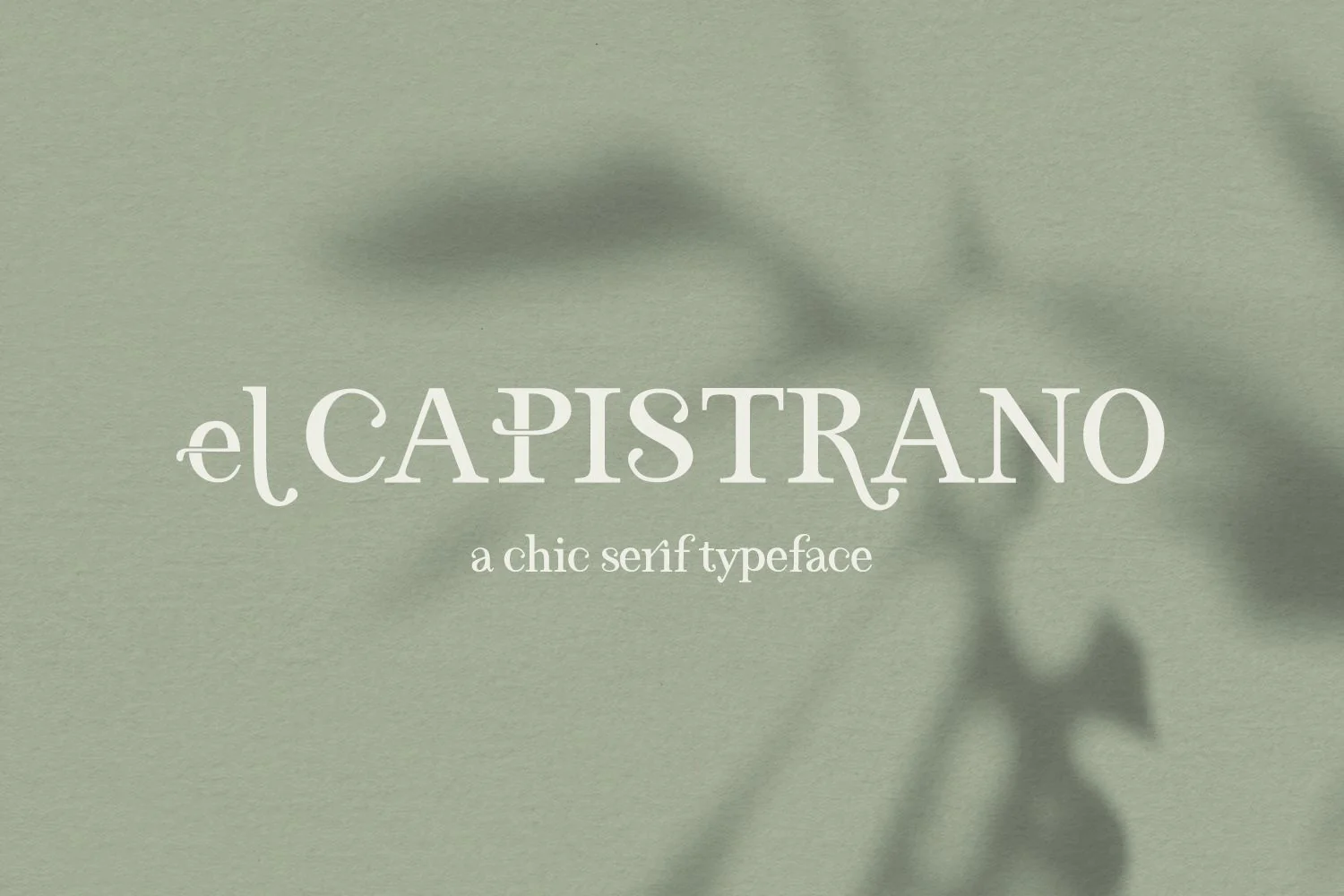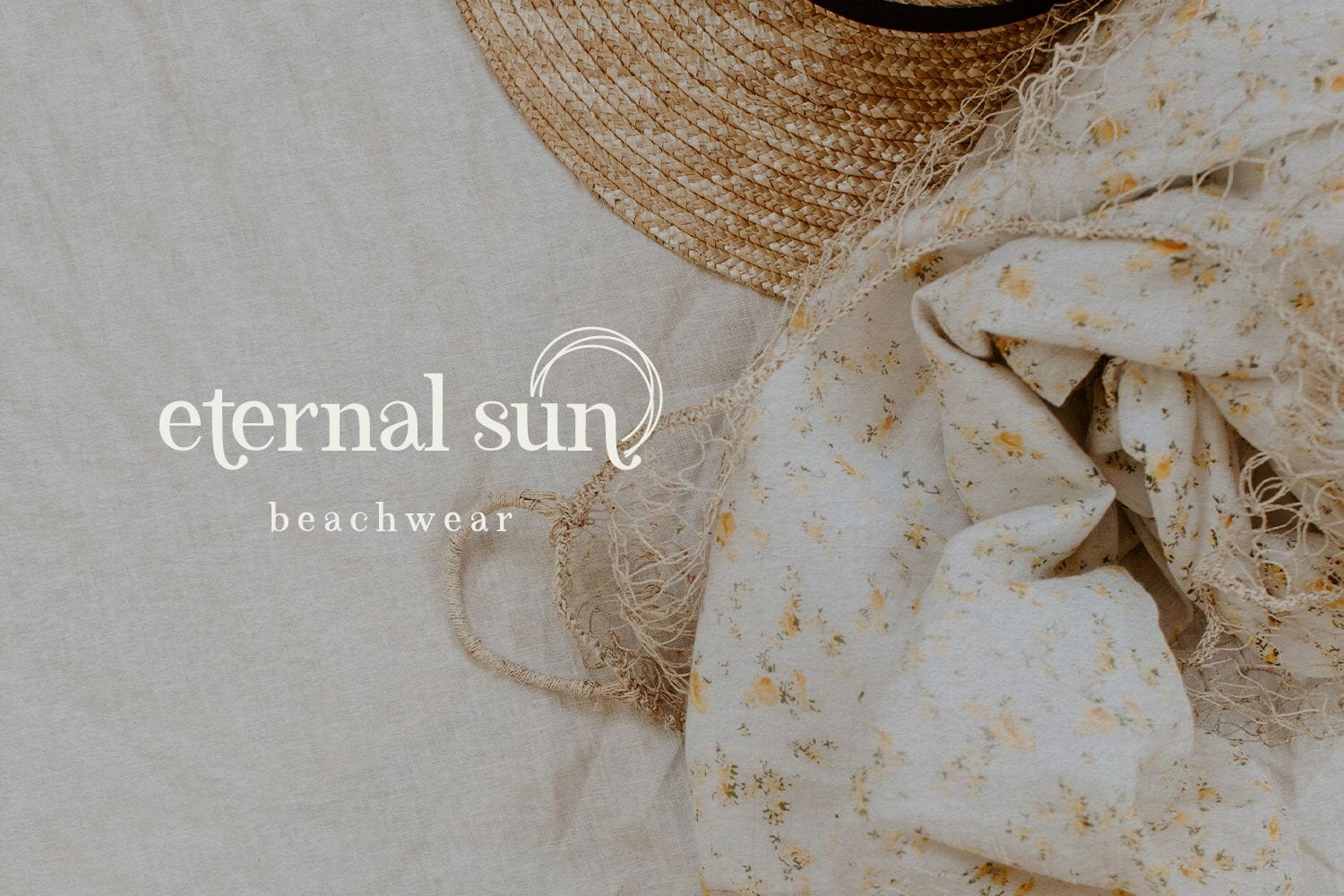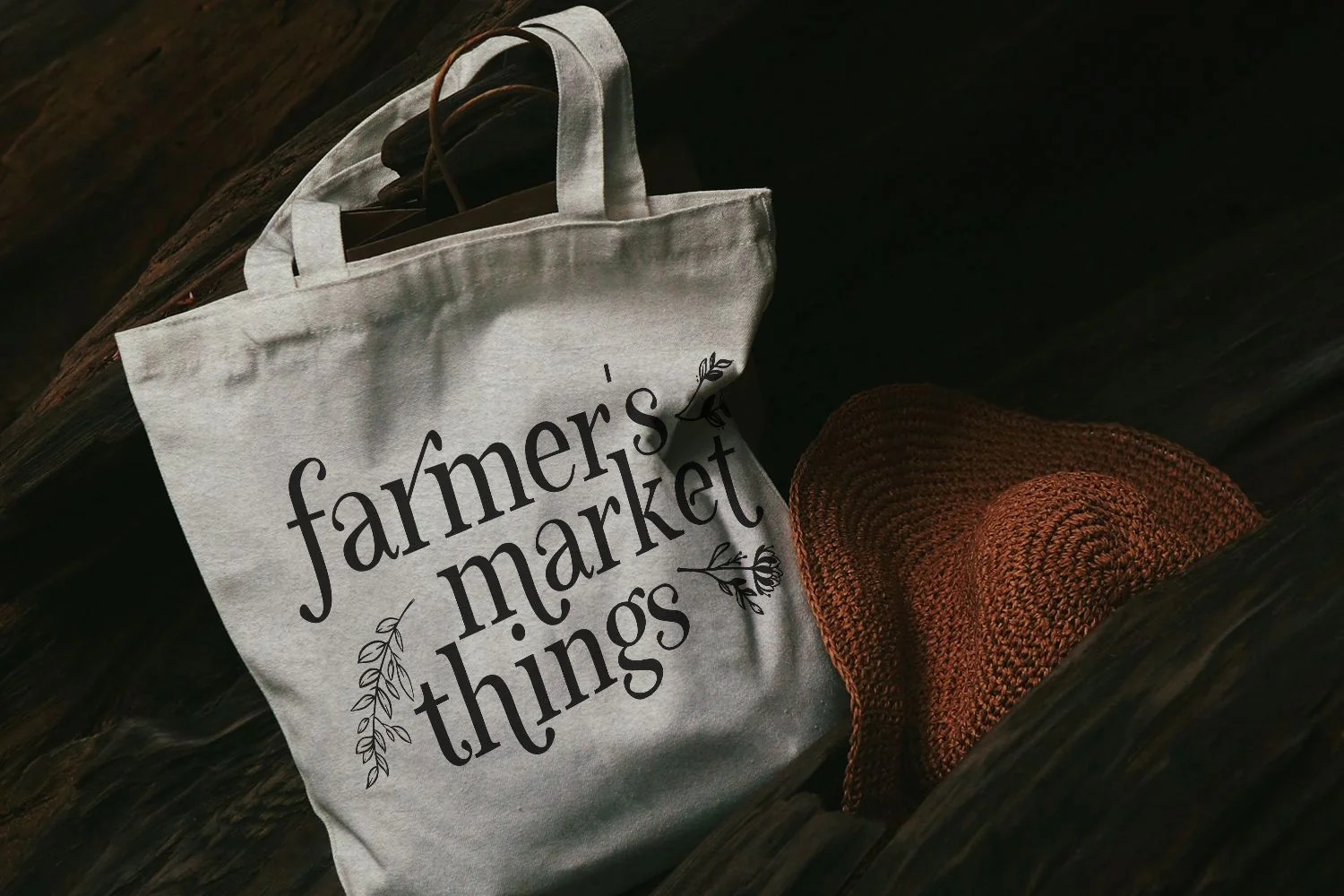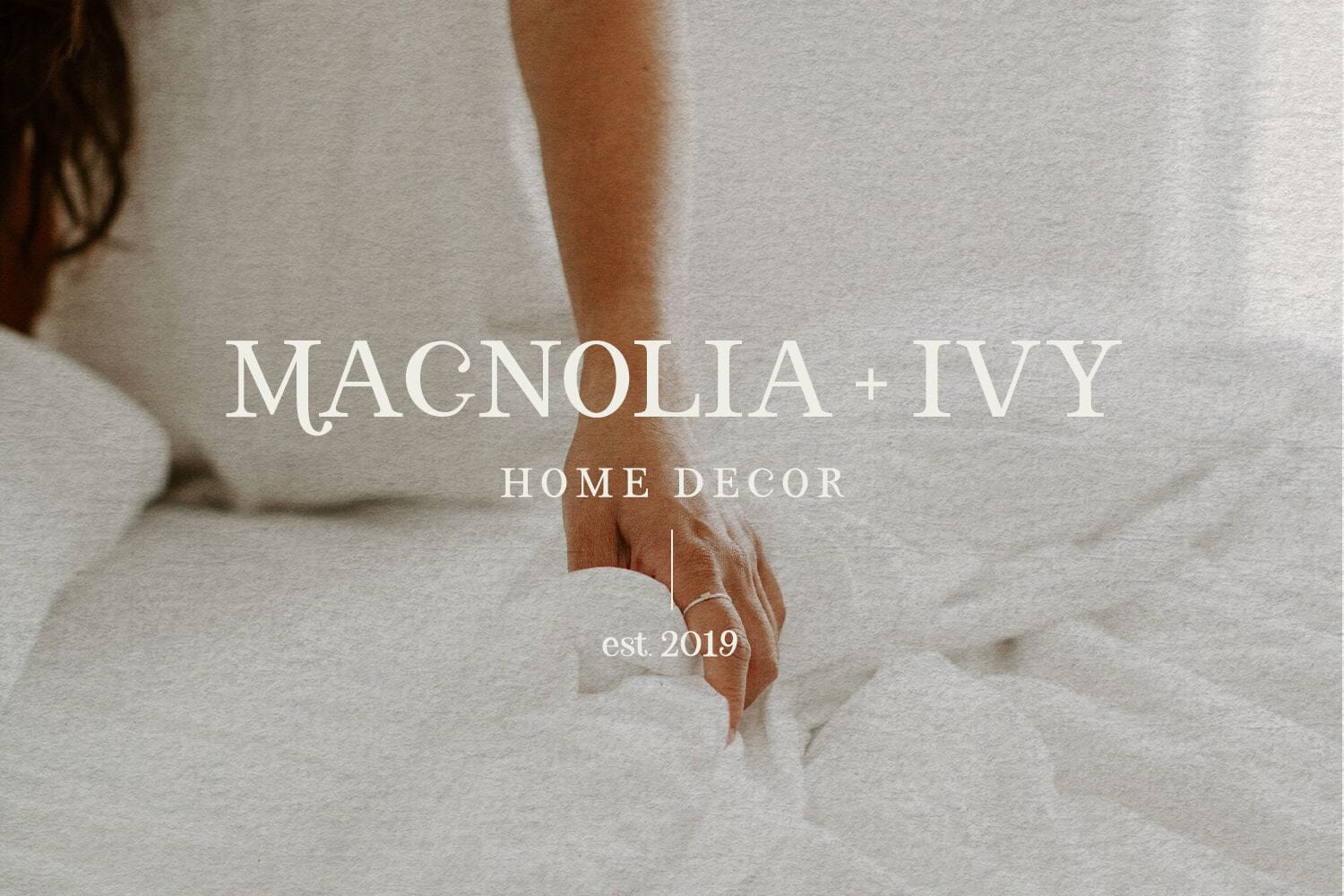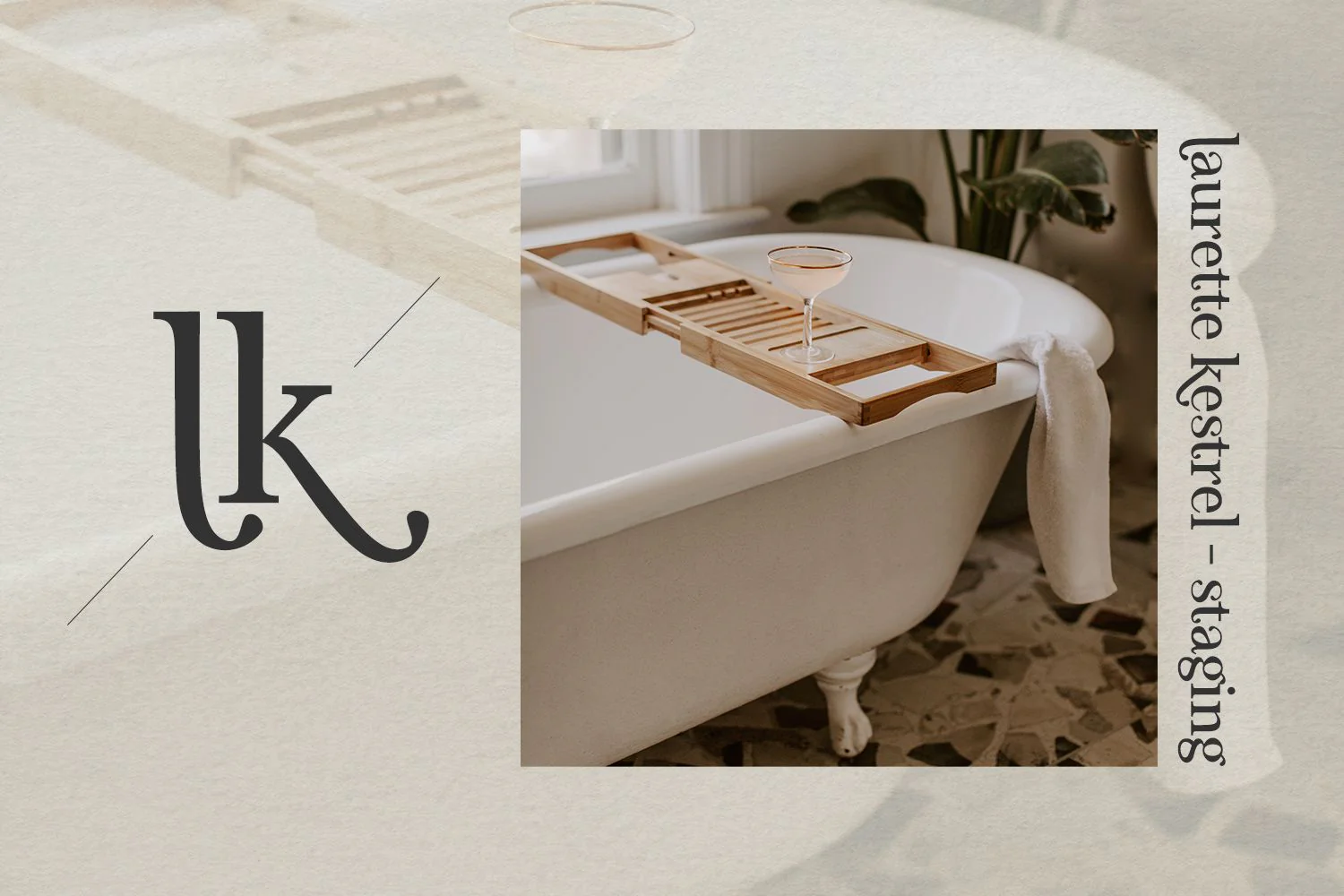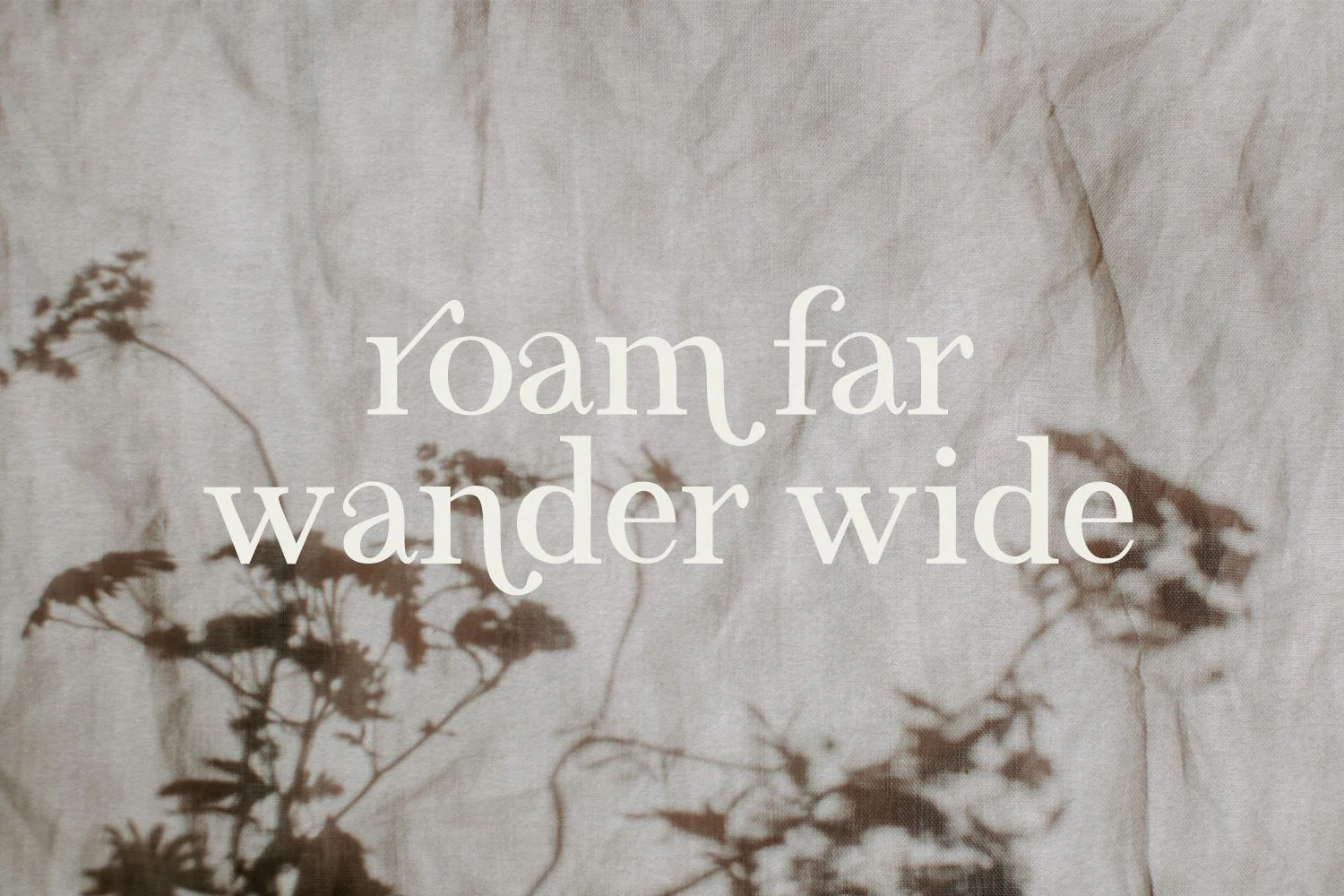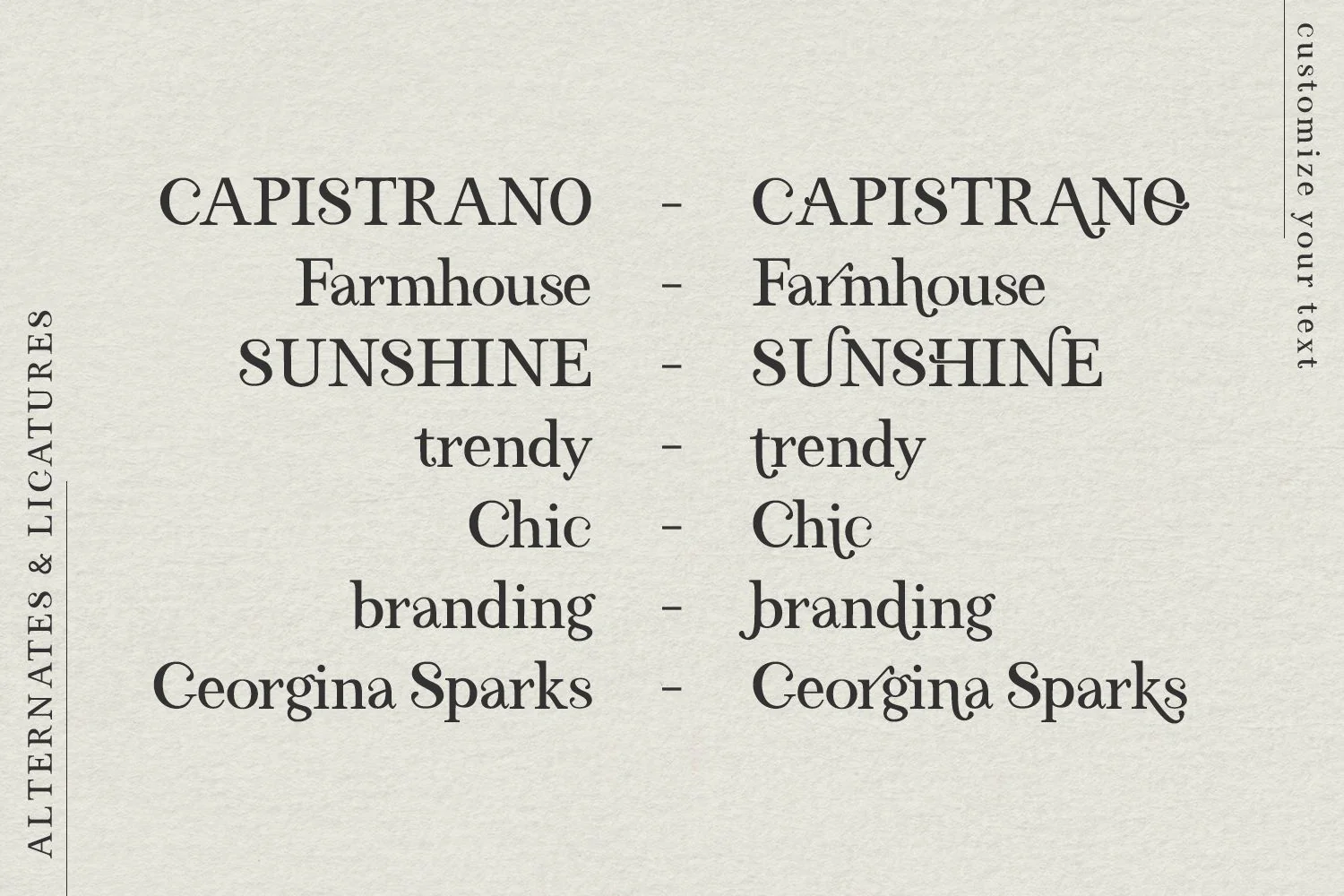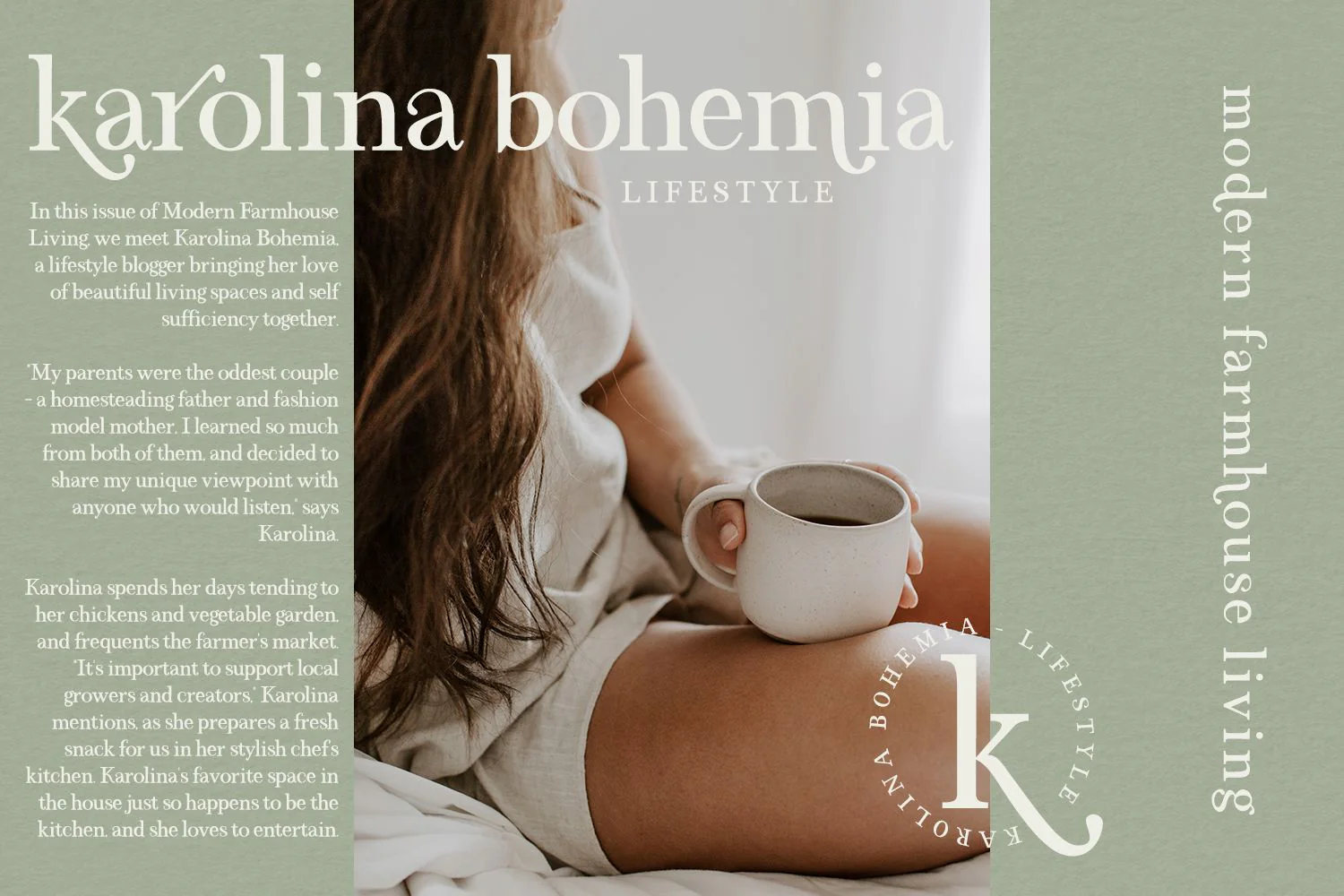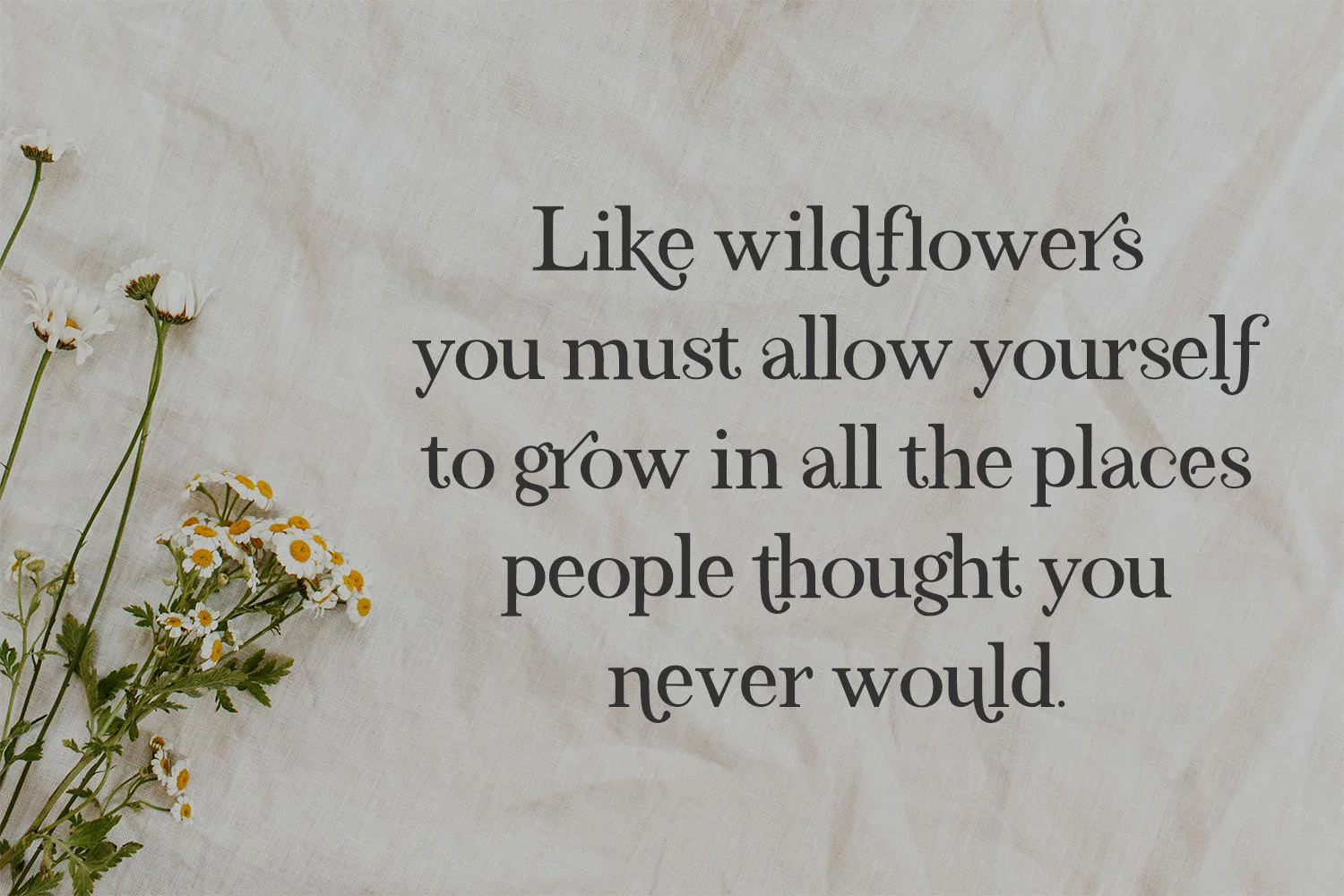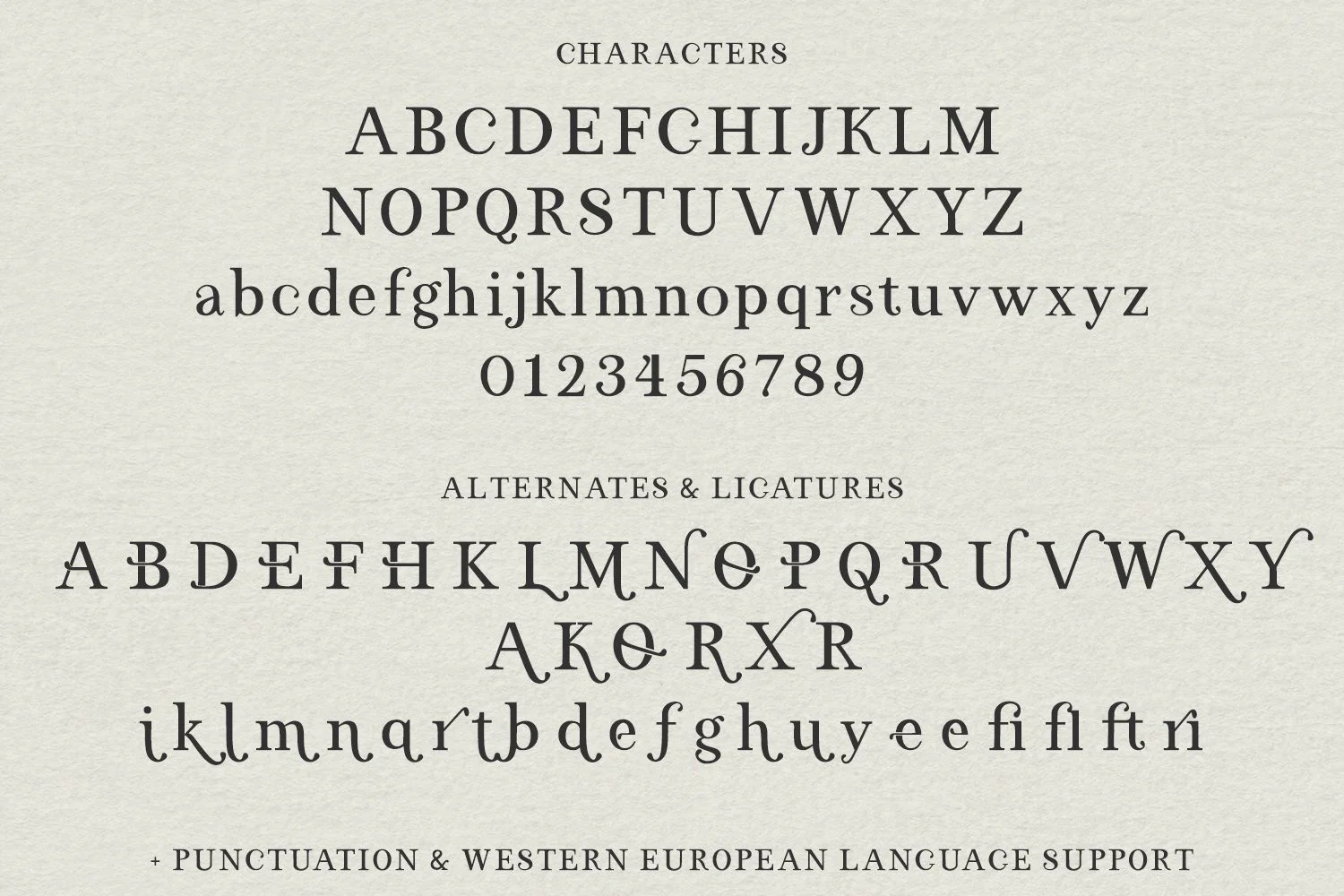
El Capistrano Serif Font
Say hello to El Capistrano Serif, a stylish and chic serif font with classy ligatures and alternates. Some alternates include cut-outs where the flourish overlaps, making this classic-looking font a touch more modern. Using El Capistrano in your next project will no doubt ensure that it stands out!
El Capistrano Serif is best for:
- logos + branding
- printed materials, both for attention grabbing headlines and easy to read blocks of content
- header elements that need handwritten touch
- quote graphics for social media like Facebook or Instagram
El Capistrano includes:
- 43 alternate characters
- 4 ligatures - fi, fl, ft, ri
Say hello to El Capistrano Serif, a stylish and chic serif font with classy ligatures and alternates. Some alternates include cut-outs where the flourish overlaps, making this classic-looking font a touch more modern. Using El Capistrano in your next project will no doubt ensure that it stands out!
El Capistrano Serif is best for:
- logos + branding
- printed materials, both for attention grabbing headlines and easy to read blocks of content
- header elements that need handwritten touch
- quote graphics for social media like Facebook or Instagram
El Capistrano includes:
- 43 alternate characters
- 4 ligatures - fi, fl, ft, ri